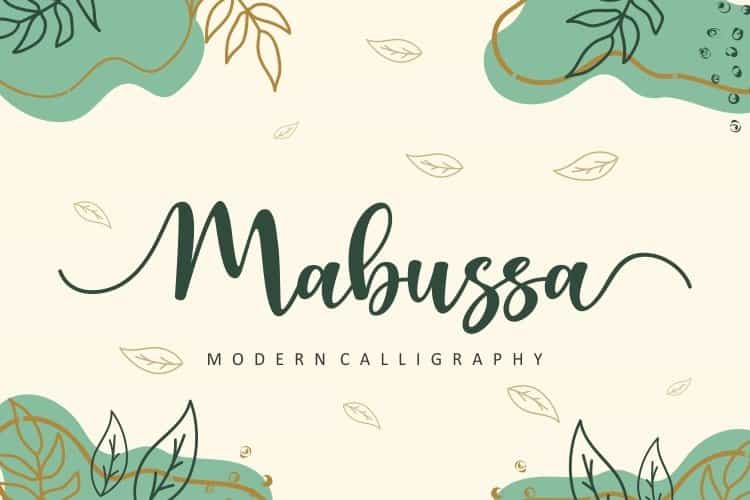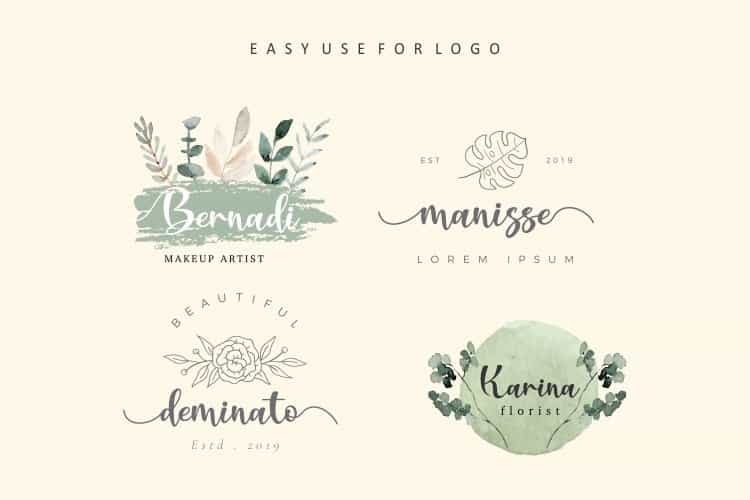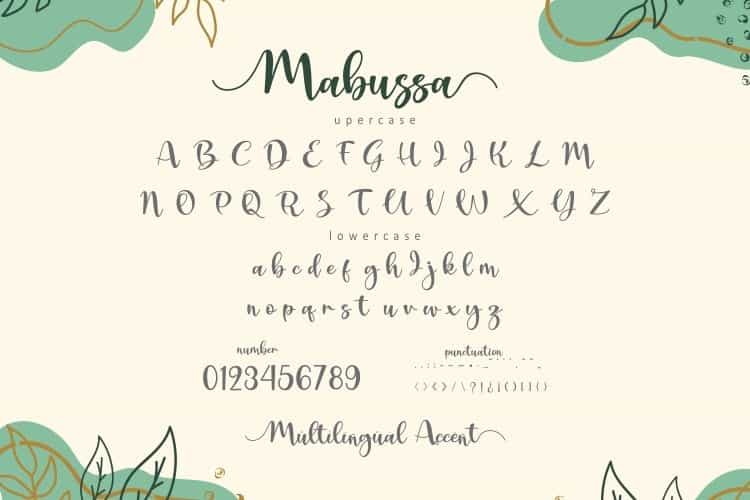
Mabussa calligraphy font is stunning in many different applications and will add beauty and grace to any project you use it in. Ideal for branding and logo design projects, invitations stationery wedding designs social media posts ads packaging labels product designs photographs special events watermarks or any special occasions projects of all kinds or any special events!